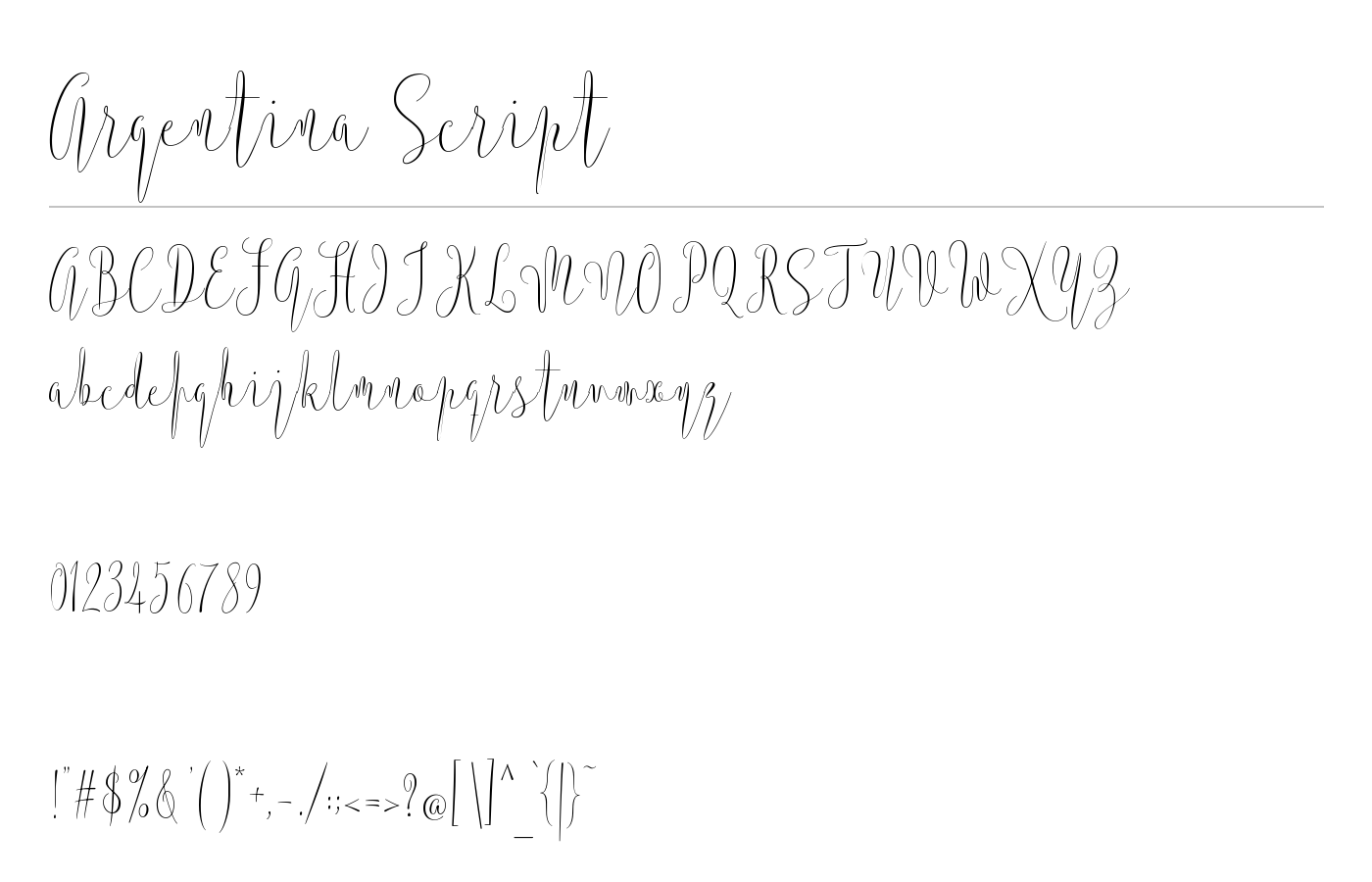
Argentina Script is a delicate, elegant script font characterized by its thin, elongated strokes and graceful, flowing letterforms. Its fine lines and airy, handwritten style make it perfect for adding a sophisticated, personal touch to invitations, branding, and feminine design projects. This font works especially well in upscale or romantic contexts where a light, refined, and artistic feel is desired.
Argentina Script Font
| Designer | Darwinoo |